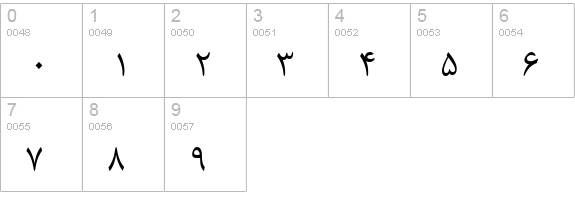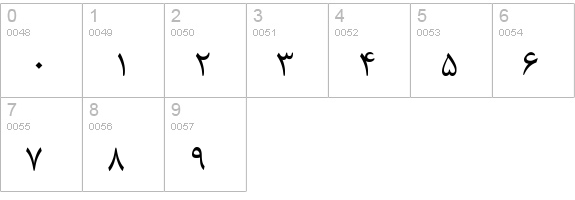
B Nazanin font is a beautifully designed typeface that exudes elegance and sophistication. With its unique calligraphic style, this font is perfect for adding a touch of elegance to any project. The flowing lines and intricate details of B Nazanin make it ideal for use in various design applications, from invitations to branding to signage. What's even better is that B Nazanin font is available for free download at FontsMarket.com. This means you can easily access this stunning typeface and use it in your projects without any cost. Whether you're a designer looking to elevate your work or someone in need of a stylish font for personal use, B Nazanin is a fantastic choice that won't break the bank. Download it today and add a touch of sophistication to your designs!